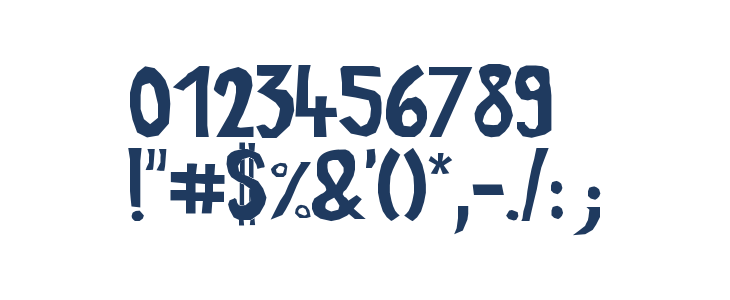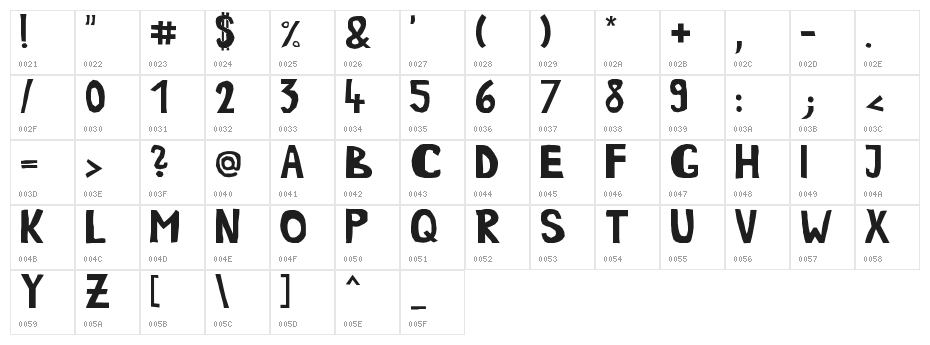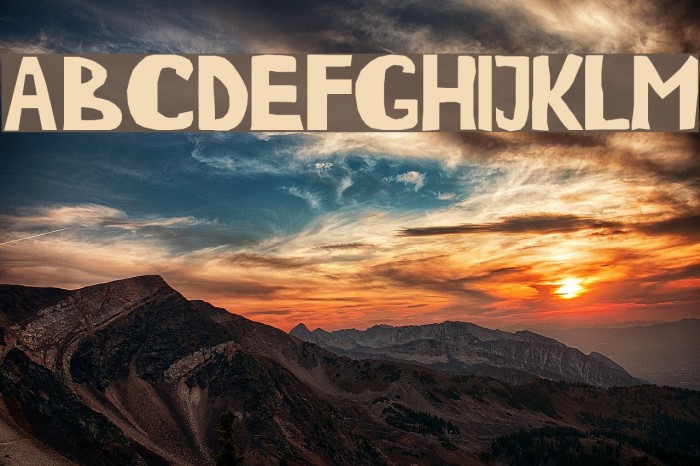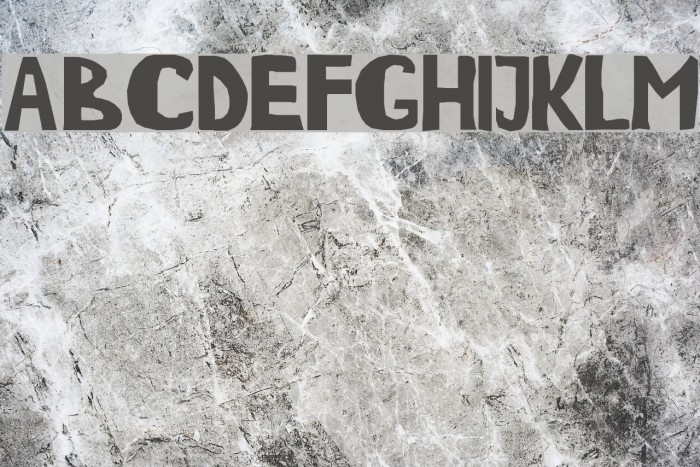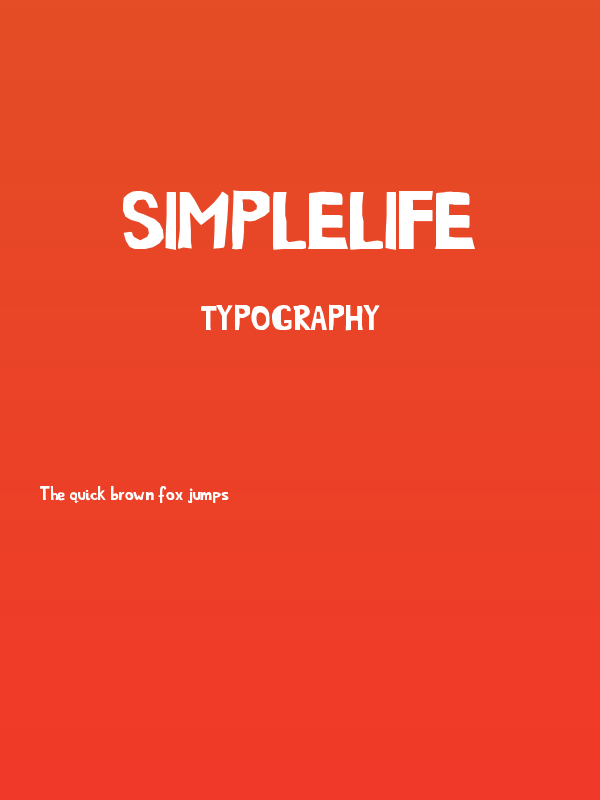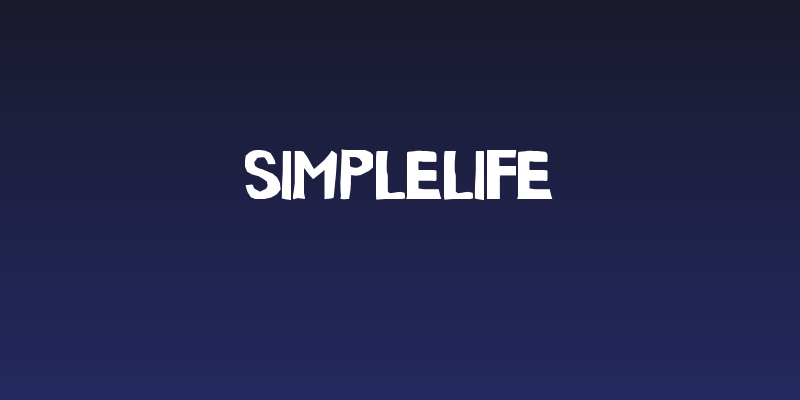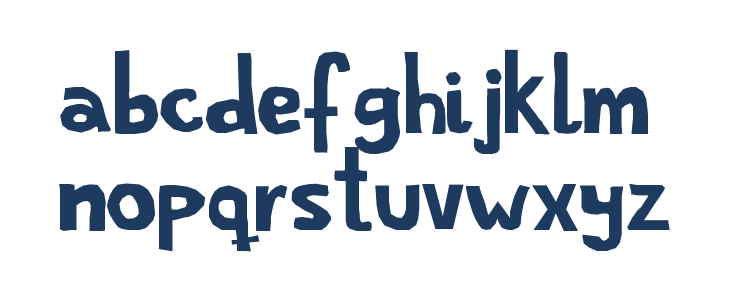
SimpleLife Font
SimpleLife Description
This font features a bold and playful style with a hand-drawn aesthetic. The characters are slightly irregular, giving it a whimsical and informal appearance. The uppercase and lowercase letters are well-balanced, with a consistent stroke width that adds to its boldness. The numbers and special characters maintain the same playful design, making it suitable for creative projects. The font's unique character shapes and bold presence make it stand out, while its informal style adds a touch of fun and creativity.
| Overall Style | Playful, Informal, Creative |
| Proposed Projects | Ideal for children's books, playful branding, greeting cards, and creative posters. |